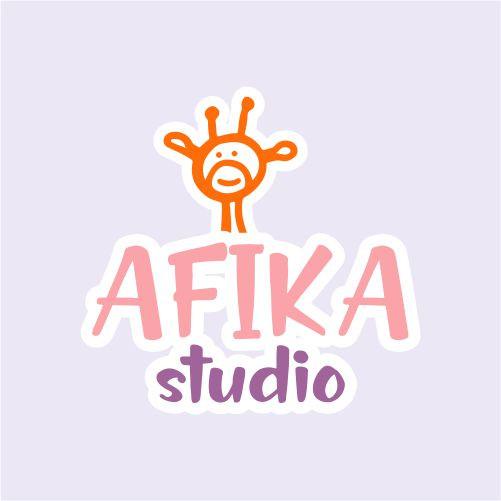
Happy Brush Font Description
Happy Brush is a quirky premium font suitable for any projects such as logos, branding projects, homeware designs, product packaging, mugs, quotes, posters, shopping bags, t-shirts, book covers, name cards, invitation cards, and greeting cards. It’s also a good fit for labels, photography, watermark, special events, and all your other luxury projects that need a premium signature taste.